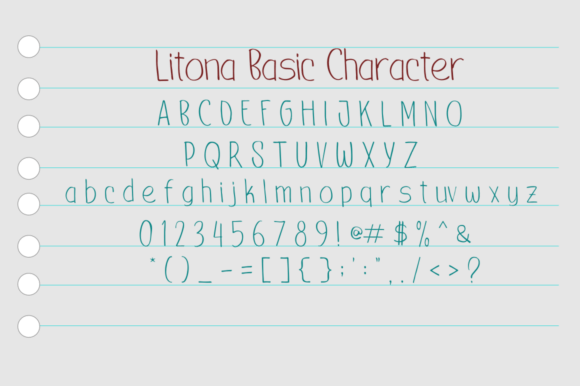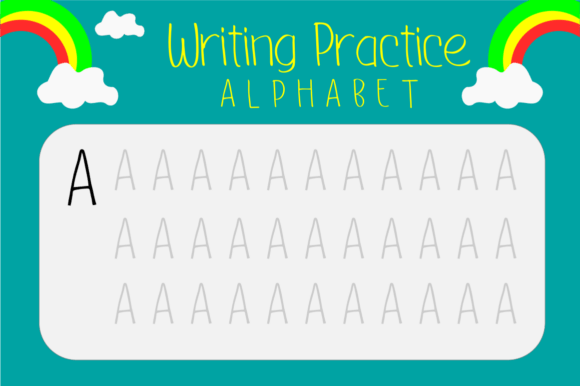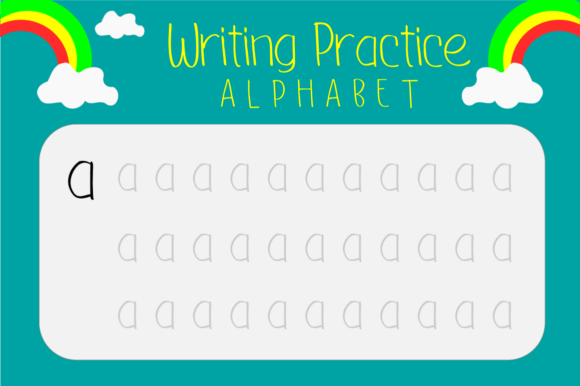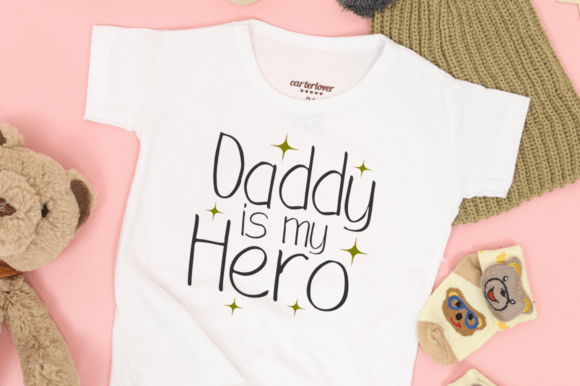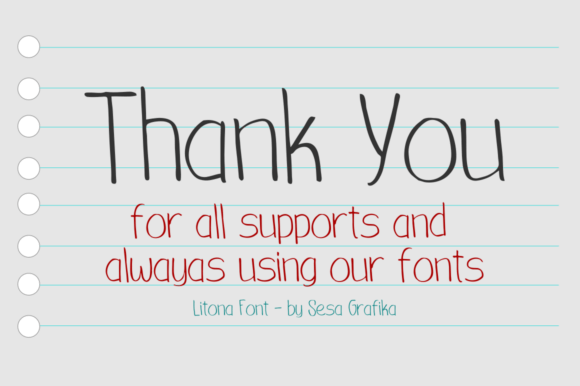
Introduction to Litona Font
Have you ever been stuck on a creative project, staring at a blank canvas, searching for that perfect design element to bring your idea to life? We’ve all been there. For designers, the right font can make all the difference. It’s like adding a sprinkle of magic to your design. And, let’s be honest, who doesn’t love a little magic?
That’s where the Litona Font comes in – a sweet and friendly handwritten font that’s sure to elevate your design projects to new heights. Whether you’re creating stickers, t-shirt designs, or even comics, this high-quality font is the perfect design resource to add a super cool touch to your work. And the best part? You can download it for free, making it a valuable addition to any designer’s toolkit.
Key Features of Litona Font
- High-quality design: Litona Font is a premium-quality font perfect for any creative project.
- Transparent background: The Litona Font features a transparent background, allowing for seamless integration with any design.
- Size and resolution: The font size ranges from 8pt to 96pt, and it supports high-resolution printing (300 DPI) for crisp and clear text.
- Unique characteristics: Litona Font features a unique blend of modern and vintage elements, making it perfect for creative projects that require a touch of sophistication.
- Easy to use: The font is designed to be easy to read and use, even at small font sizes, making it perfect for various design applications.
Honest Review: Litona Font
As a designer, I’m always on the lookout for high-quality design resources that can elevate my creative projects. Recently, I came across the Litona Font, and I’m excited to share my honest review with you.
- ✨ The Litona Font has a unique and modern aesthetic that’s perfect for minimalist designs.
- ✨ The transparent background allows for seamless integration with other design elements.
- ⚠️ The font doesn’t support a wide range of languages, which may be a concern for designers working on international projects.
Overall, I’m impressed with the Litona Font’s modern design and versatility. While it may have some limitations, it’s still a great addition to any designer’s toolkit. If you’re looking for a free, high-quality font for your creative project, the Litona Font is definitely worth checking out.
The Litona Font is ideal for creative projects, such as branding, advertising, and packaging design. It’s also perfect for digital designers who need a high-quality font for web design and social media graphics.
Tips for Getting the Most Out of Litona Font
To get the most out of the Litona Font, experiment with different font sizes, colors, and combinations to create unique and visually appealing designs. You can also pair the font with other design resources, such as icons and graphics, to add depth and interest to your project.